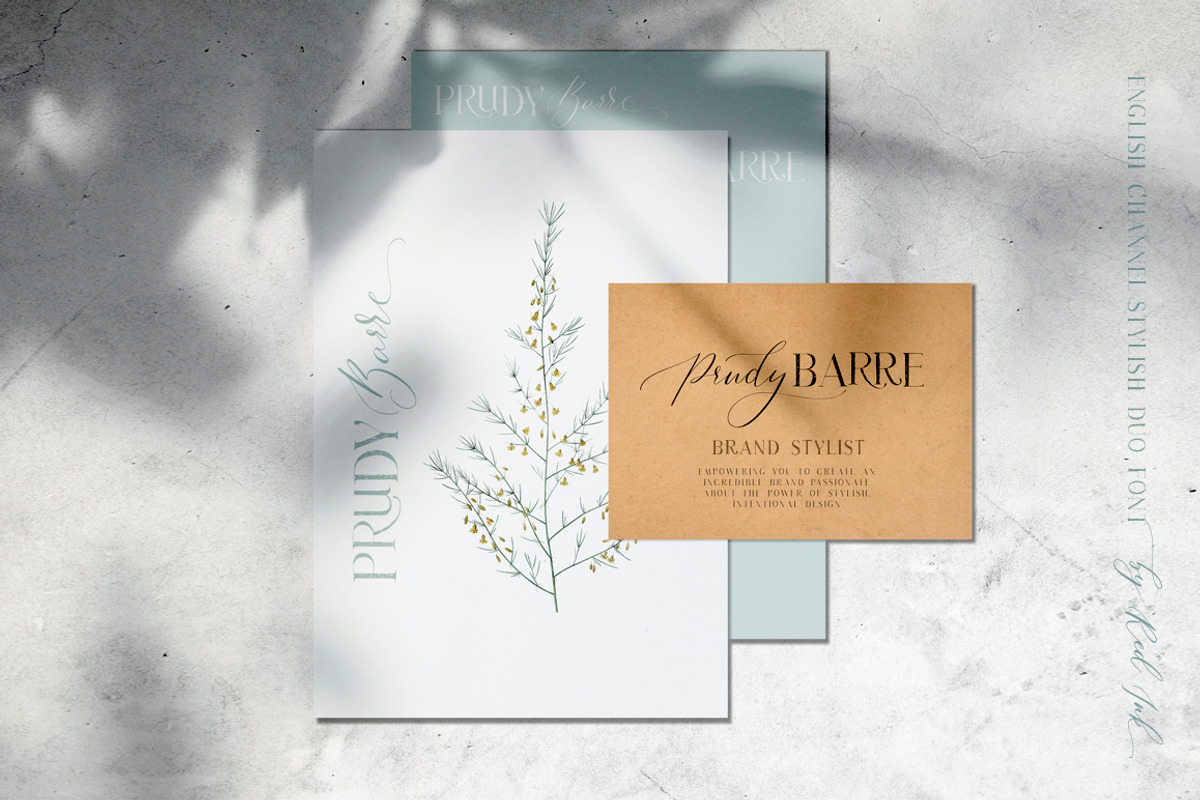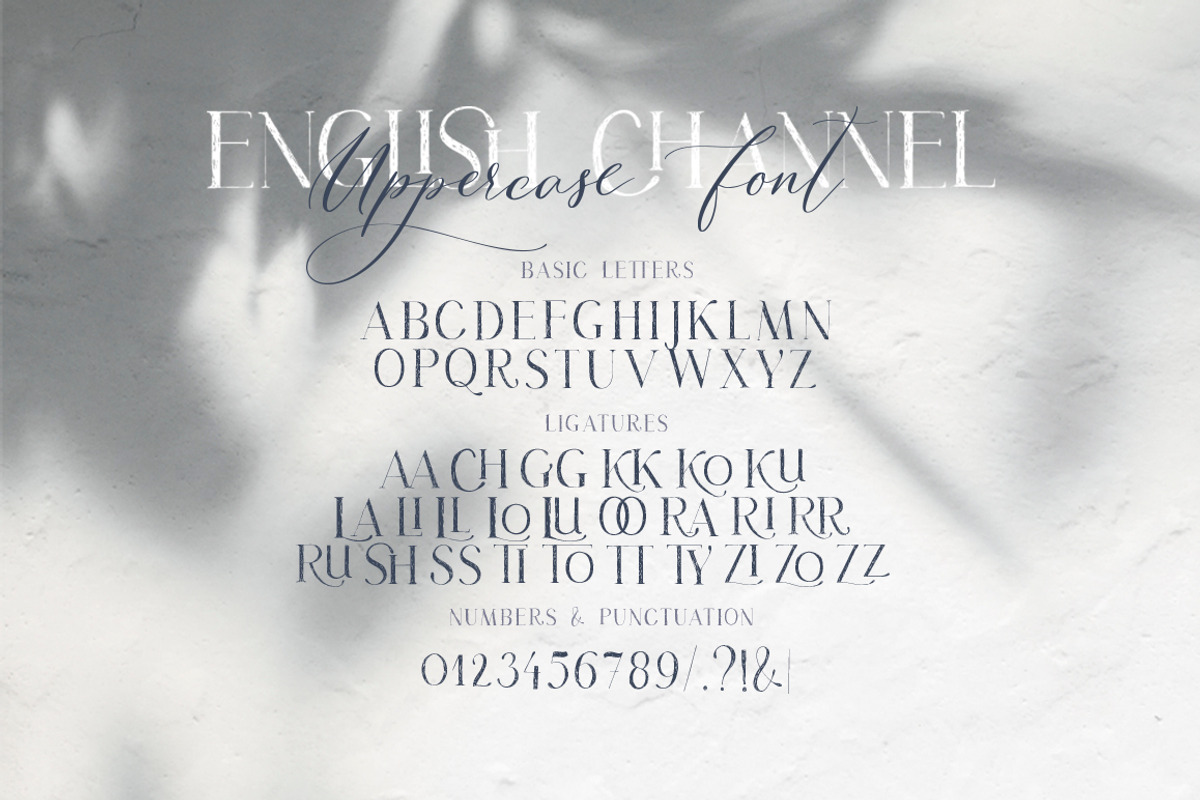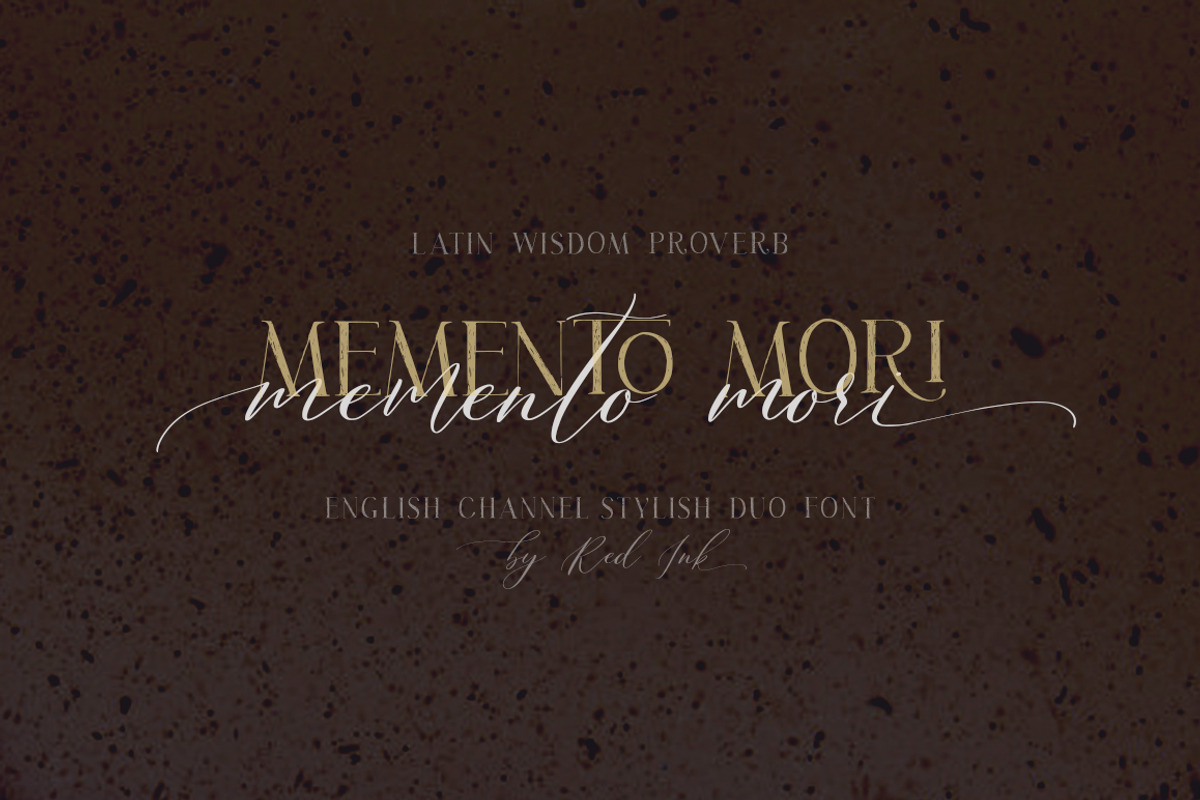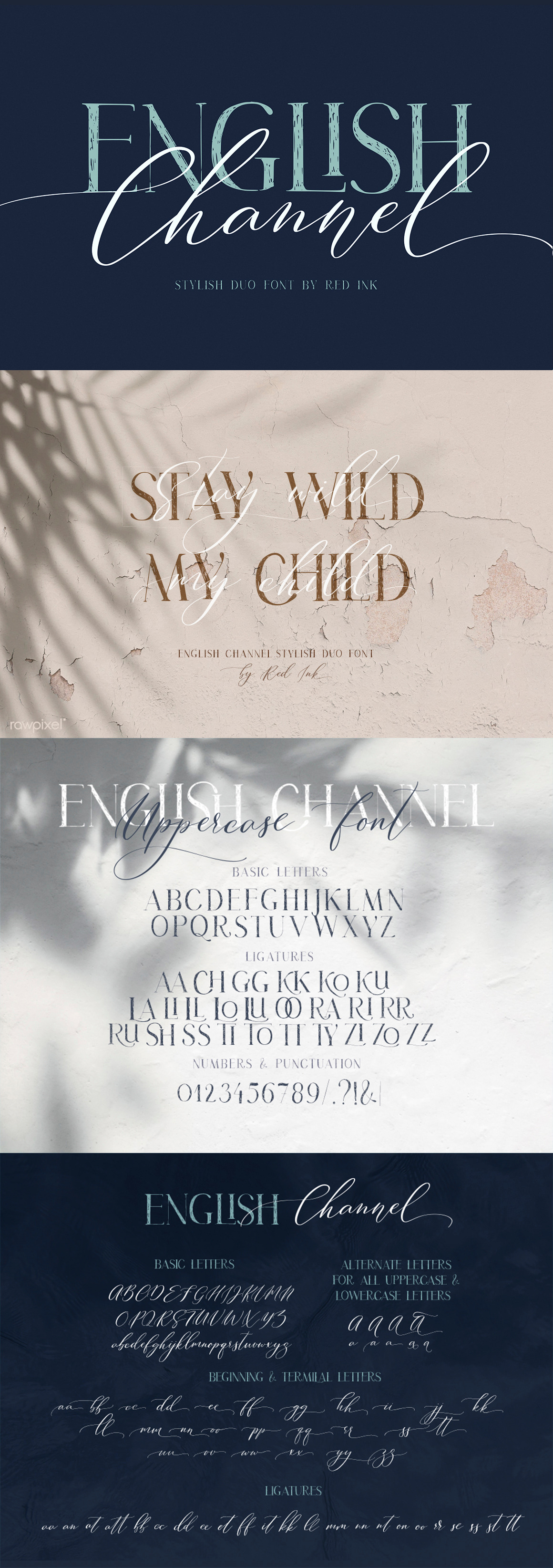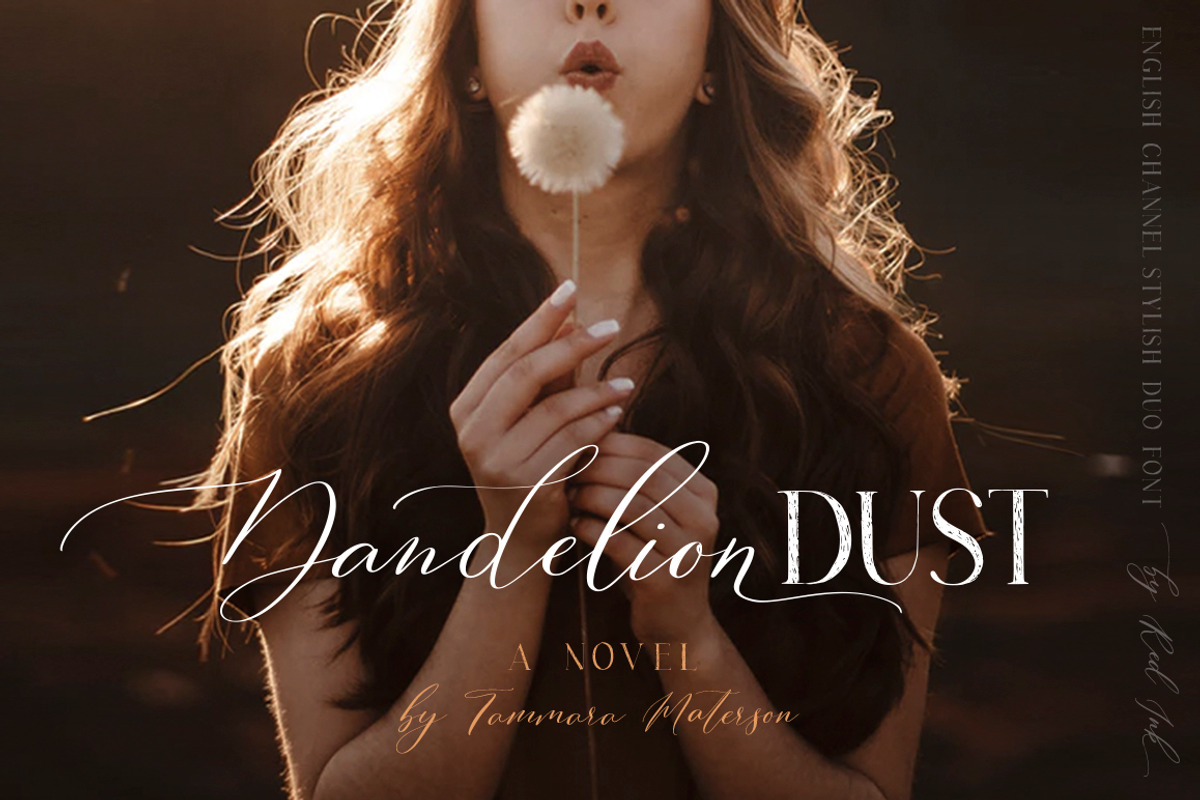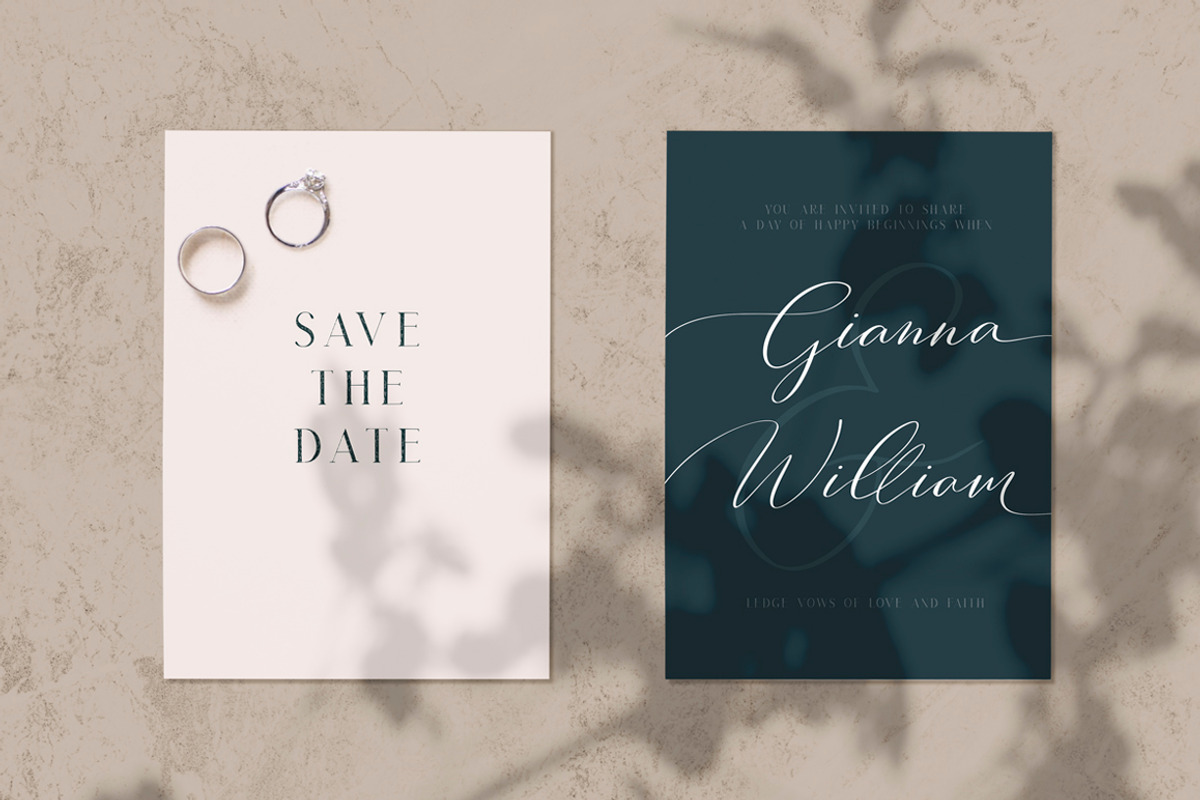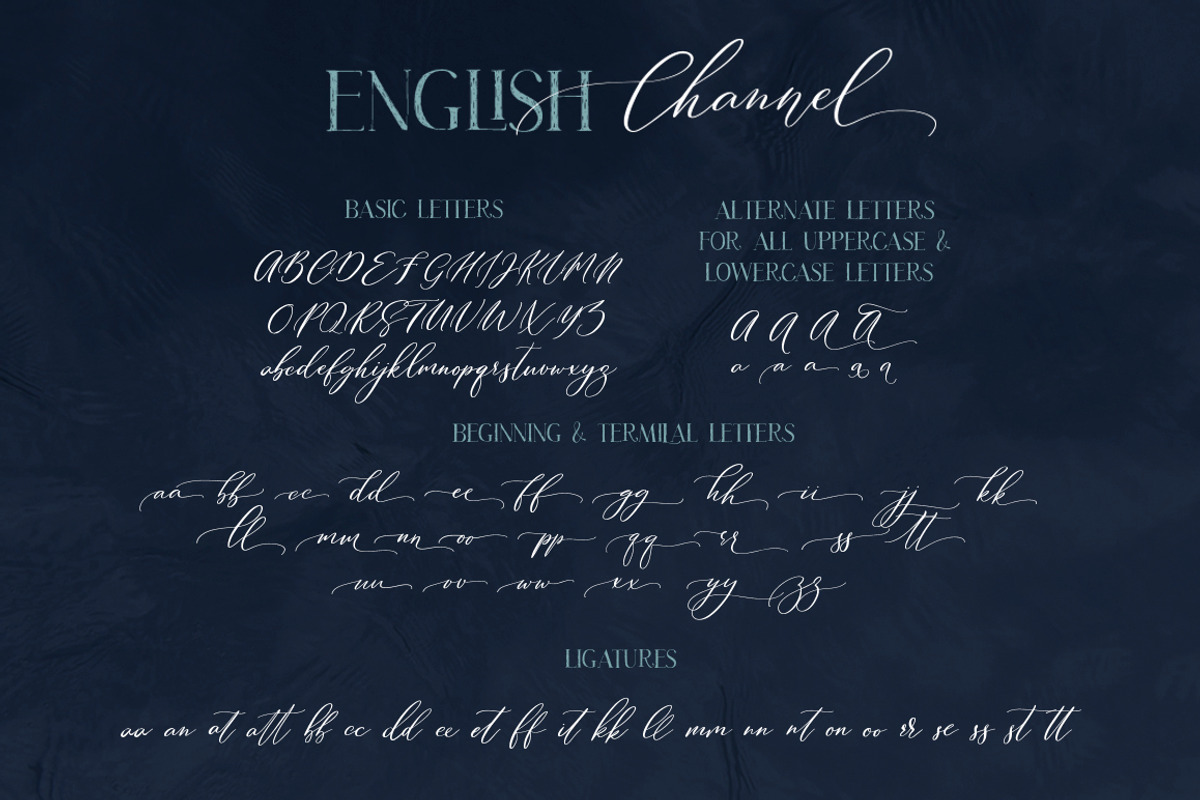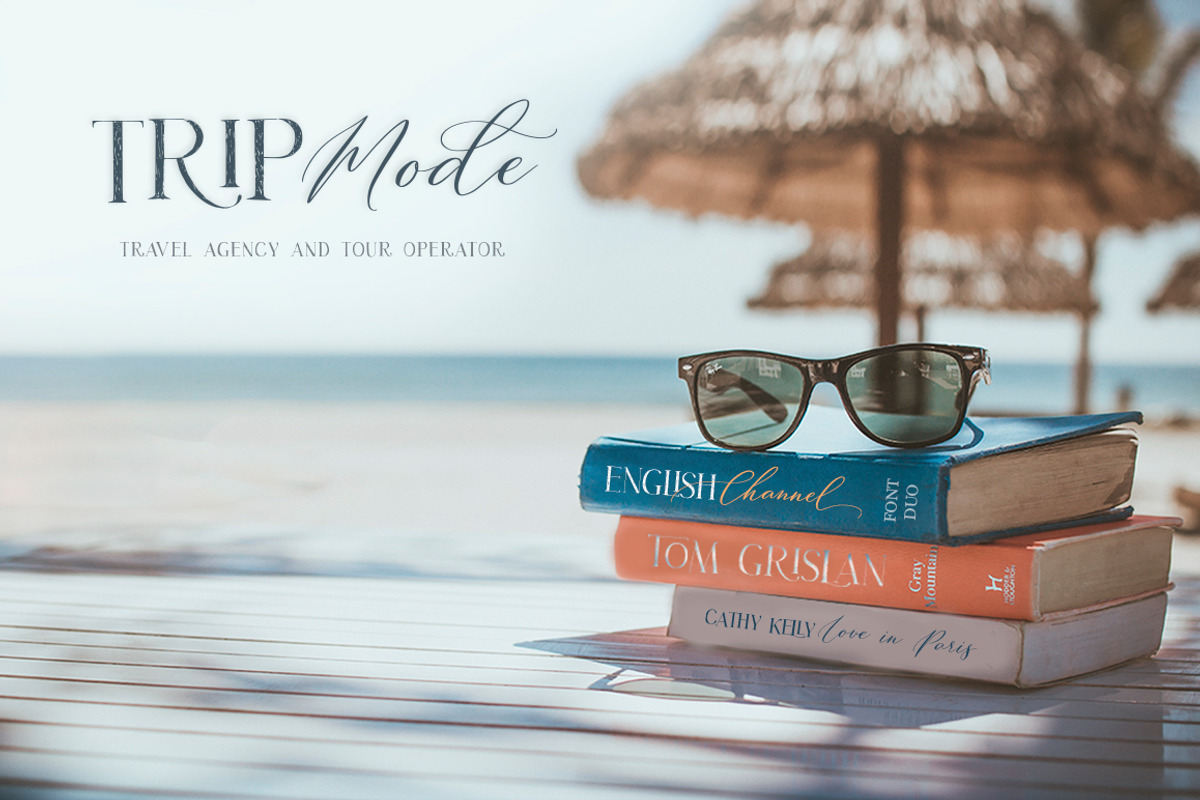
English Channel. Duo Font.
Say hello for calligraphy font debut “English Channel” – my new contemporary stylish font duo.
“English Channel” is high fashion font duo that makes for gorgeous logos, posters, wedding invitations, blog posts, social media, and more! I love using these two fonts together, so it looks like the script is running through the lines of the serif.
English Channel Regular Script font includes a lot of ligatures, beginning and ending letters, with awesome swashes and a lot of alternate letters, which are very easy to get (without using Glyphs Panel).
You can reach alternate letters through the glyph panel as standard. But I also wanted to simplify the work for you, so you can choose the letter option even easier:
- just type the number after any letter ( 1…3 for uppercase, 1…3 for lowercase)”. So, you can forget about the Glyphs panel and have fun and great results just type numbers after letters
English Channel Uppercase Font consisted of capital handwritten letters with organic texture letters and also have cool ligatures to decorate texts and give them even more personality